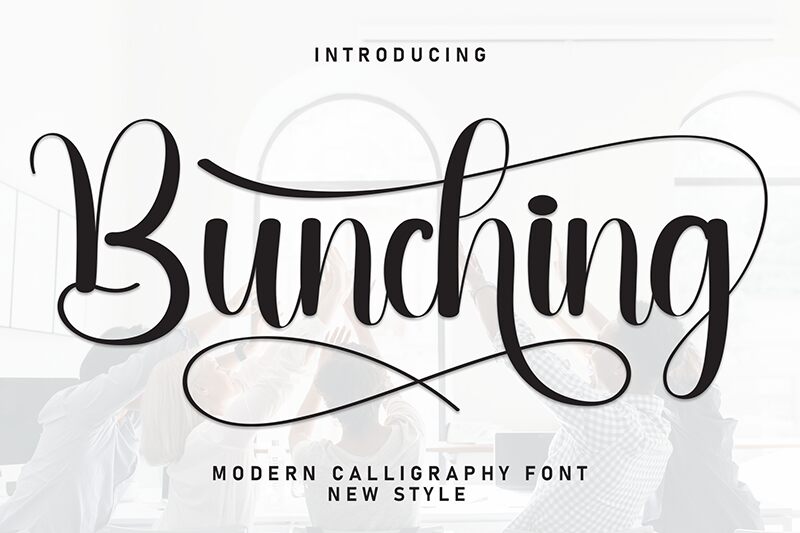
Bunching
Bunching font by Andi Moz is an elegant calligraphy typeface which will appeal to both fans of modern and classic design. With a flowing and sophisticated character typical for ornamental fonts, this design has an elusive factor that is considered expressive in such typography art.
A free calligraphy font, Bunching can be used in wedding invitations, branding, or logo designs. It would also work perfectly with product labels, greeting cards, packaging design, invitations, or posters. You could experiment with the font across book covers and movie titles too!